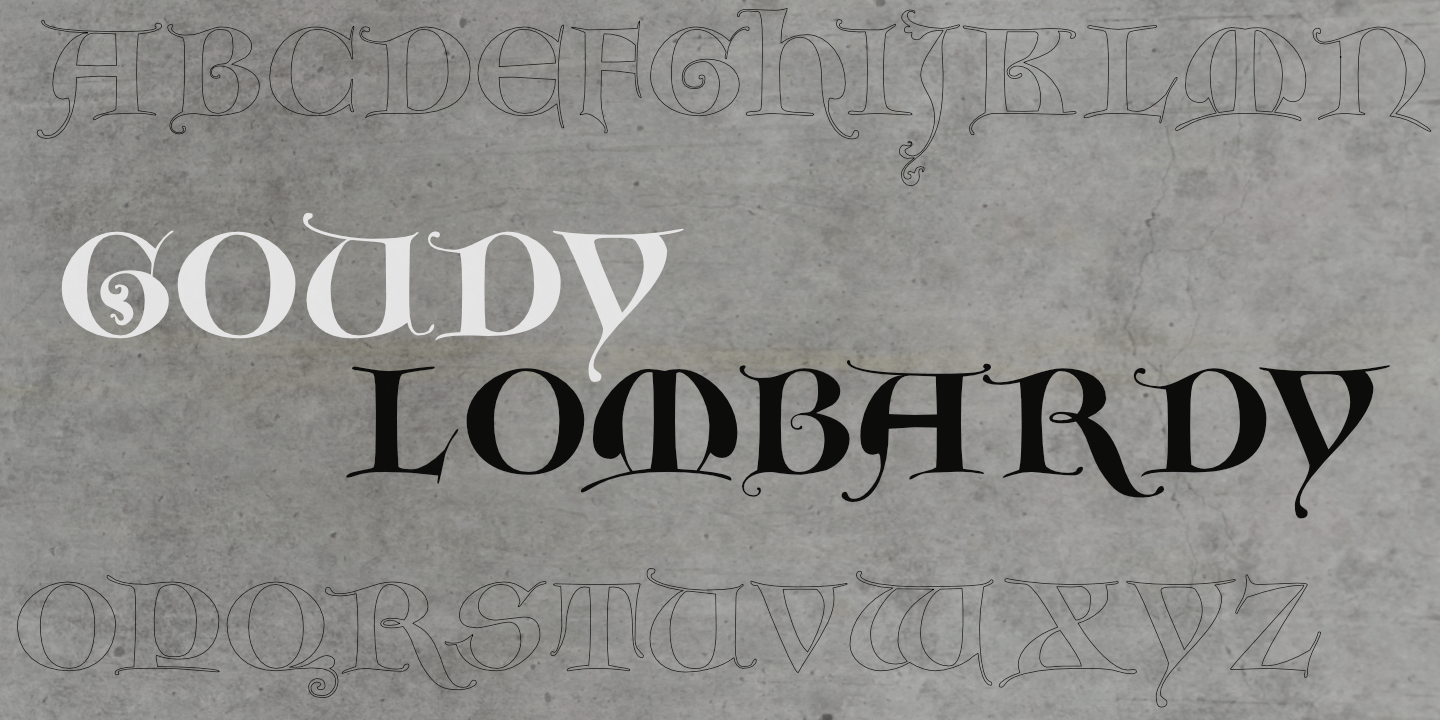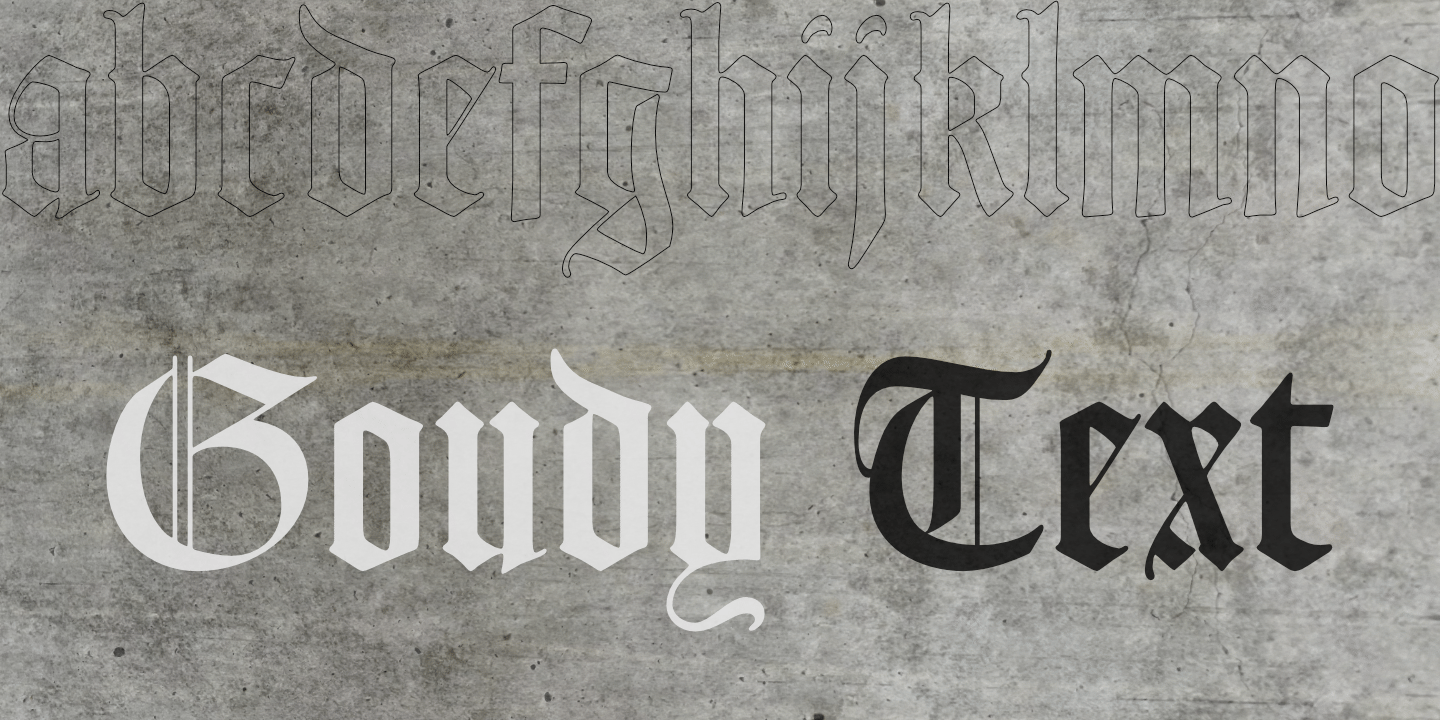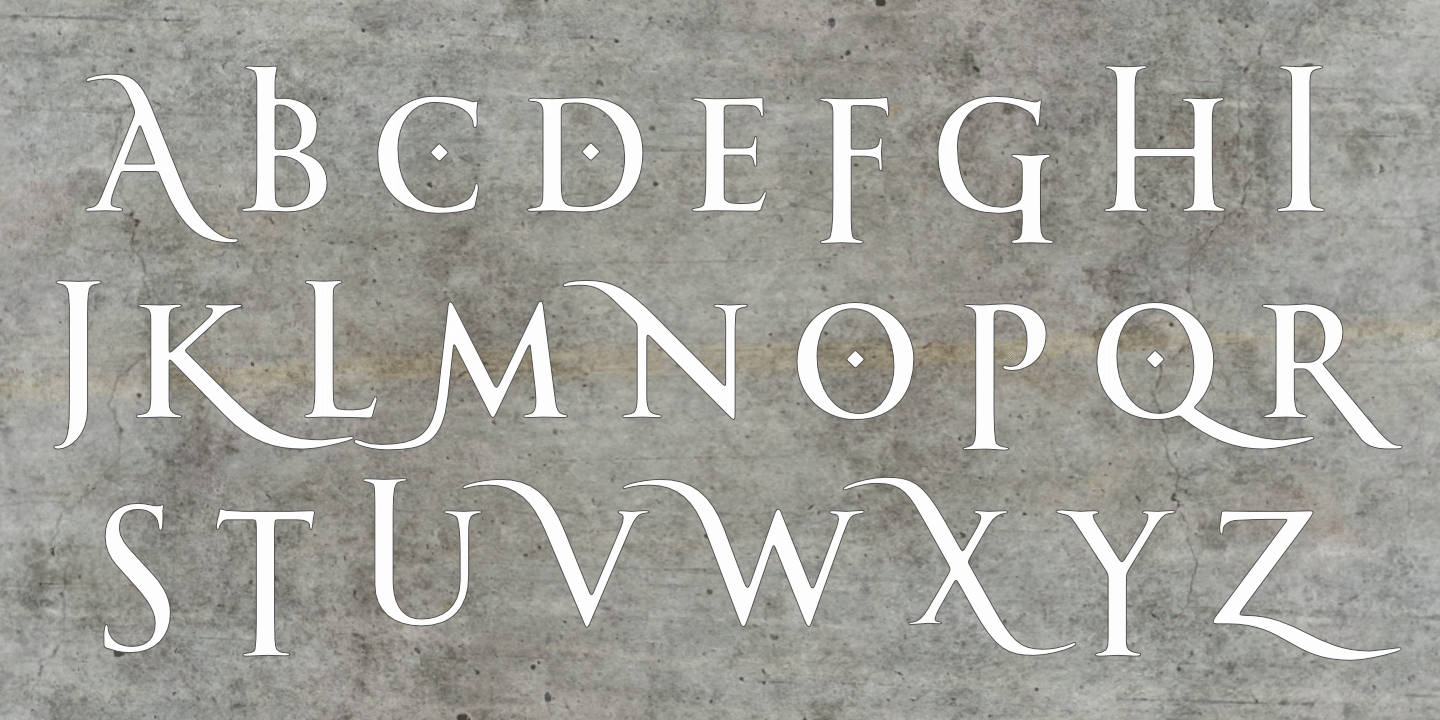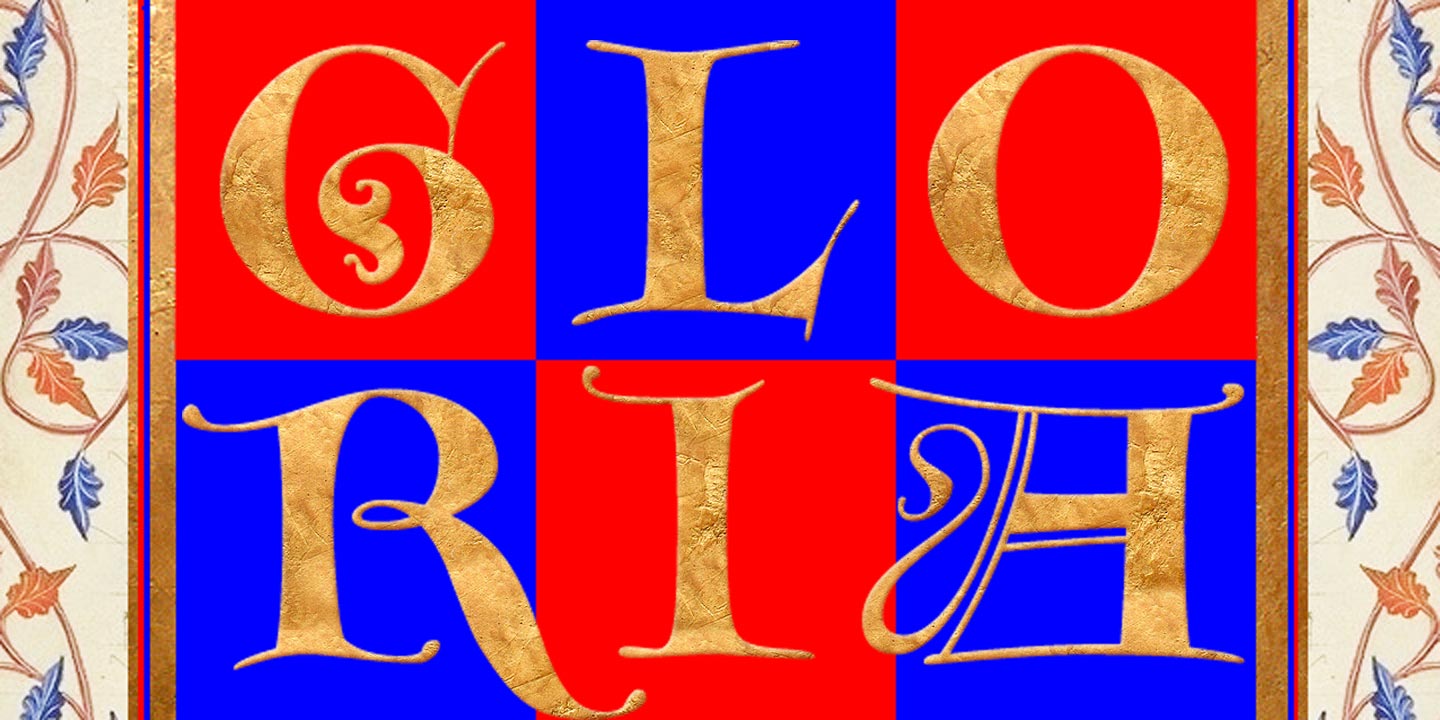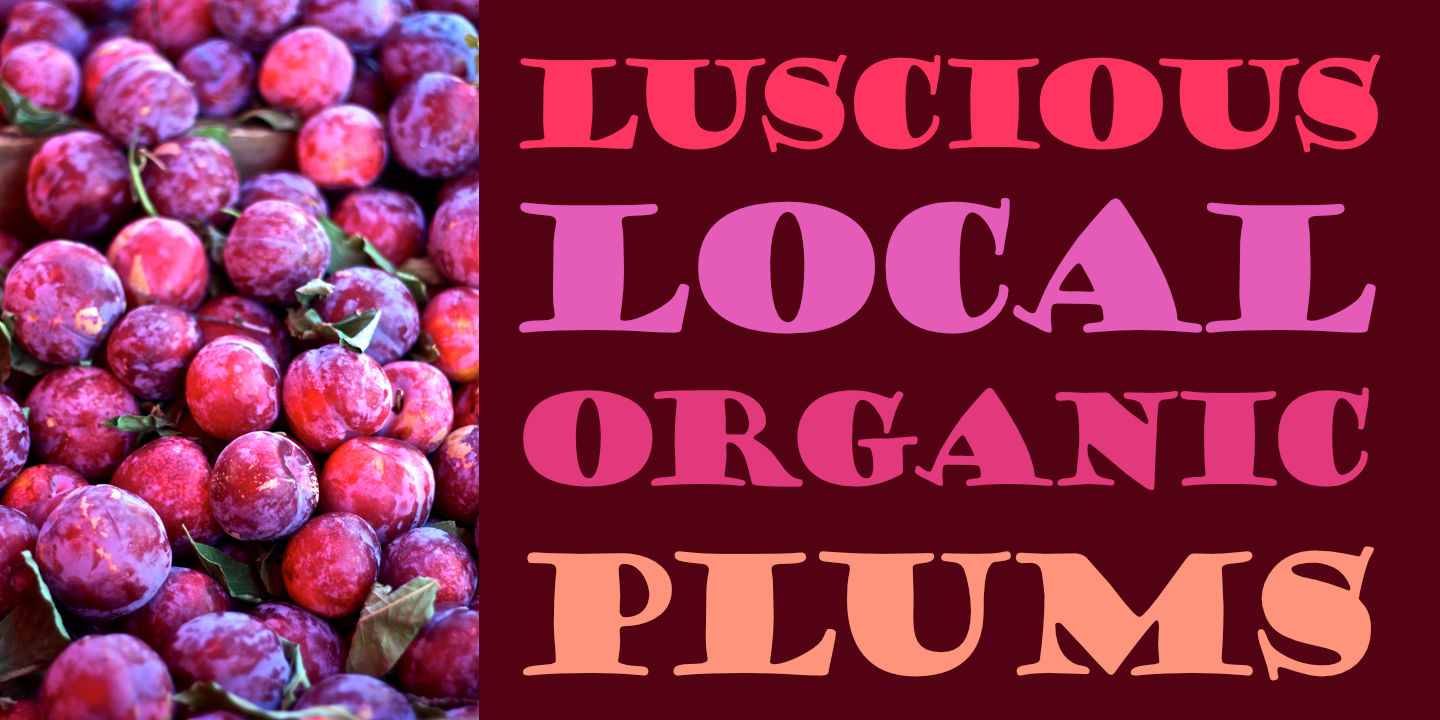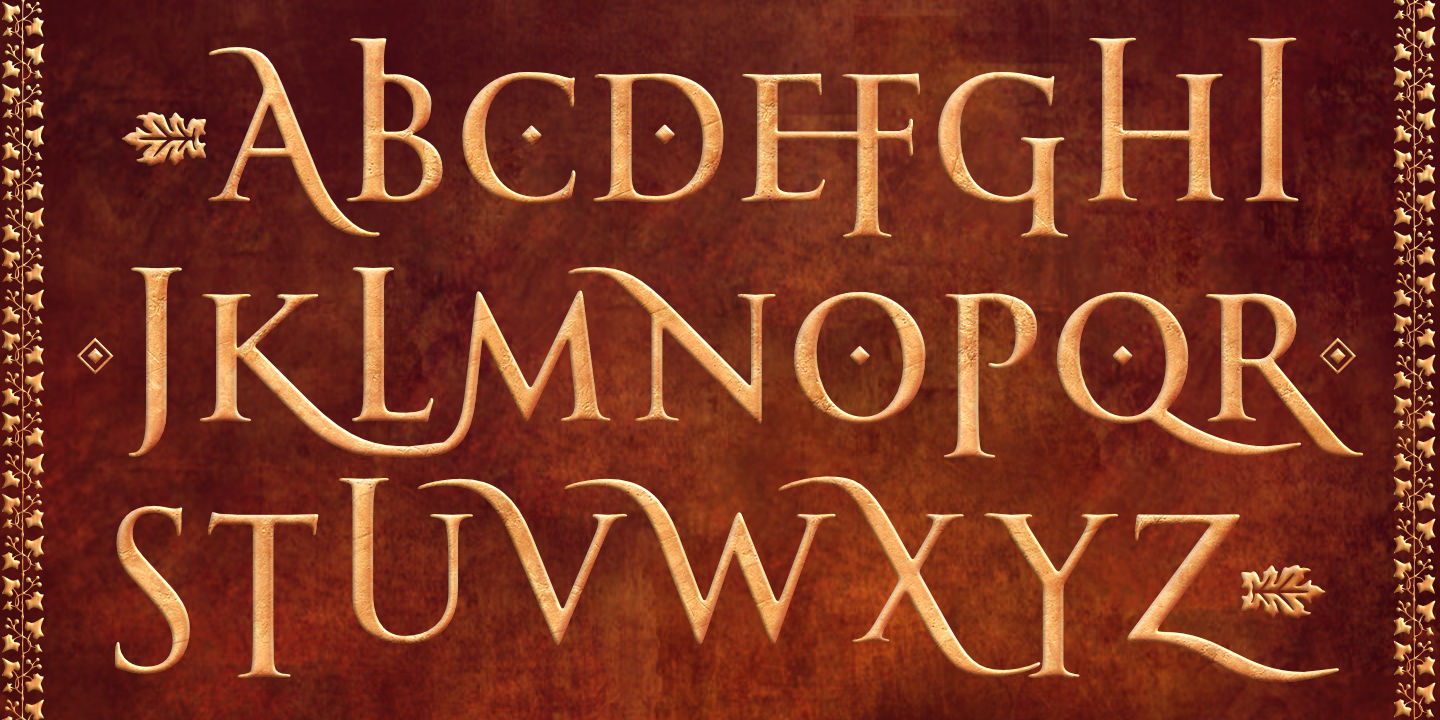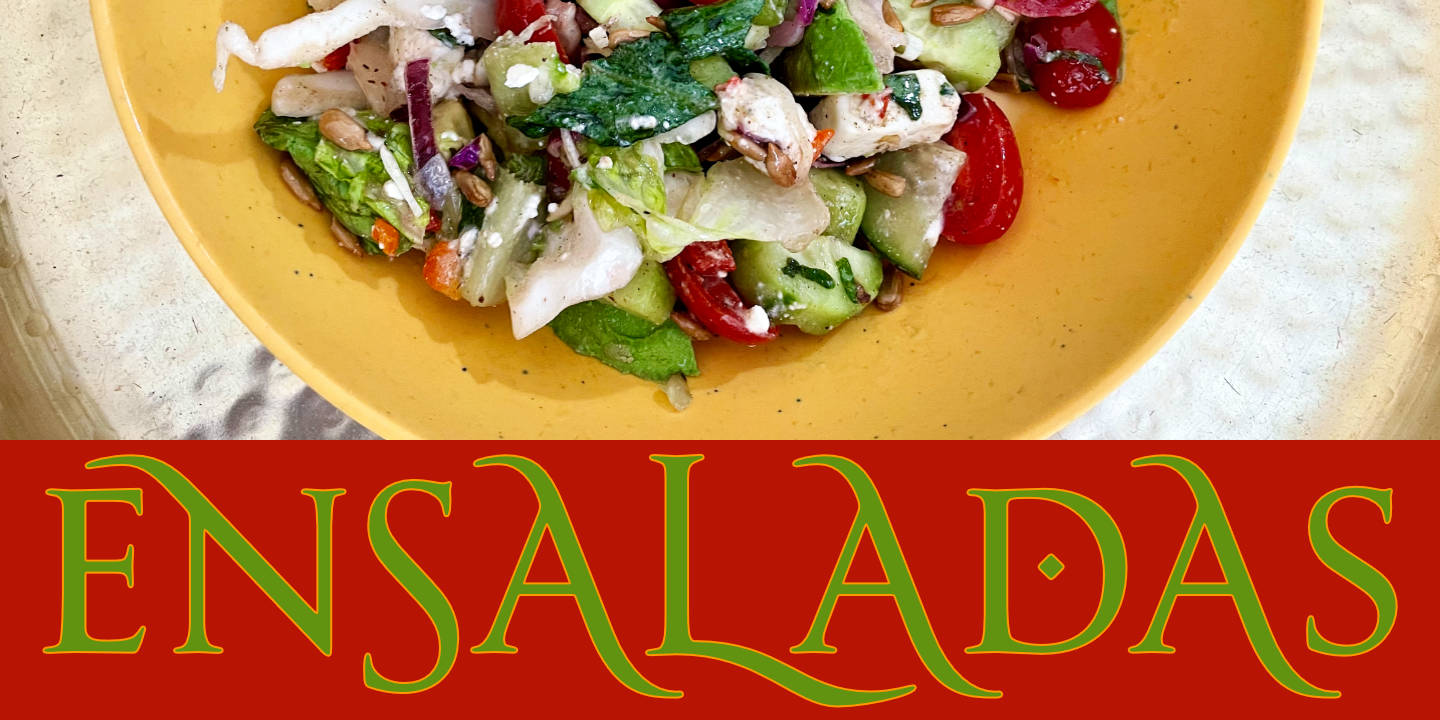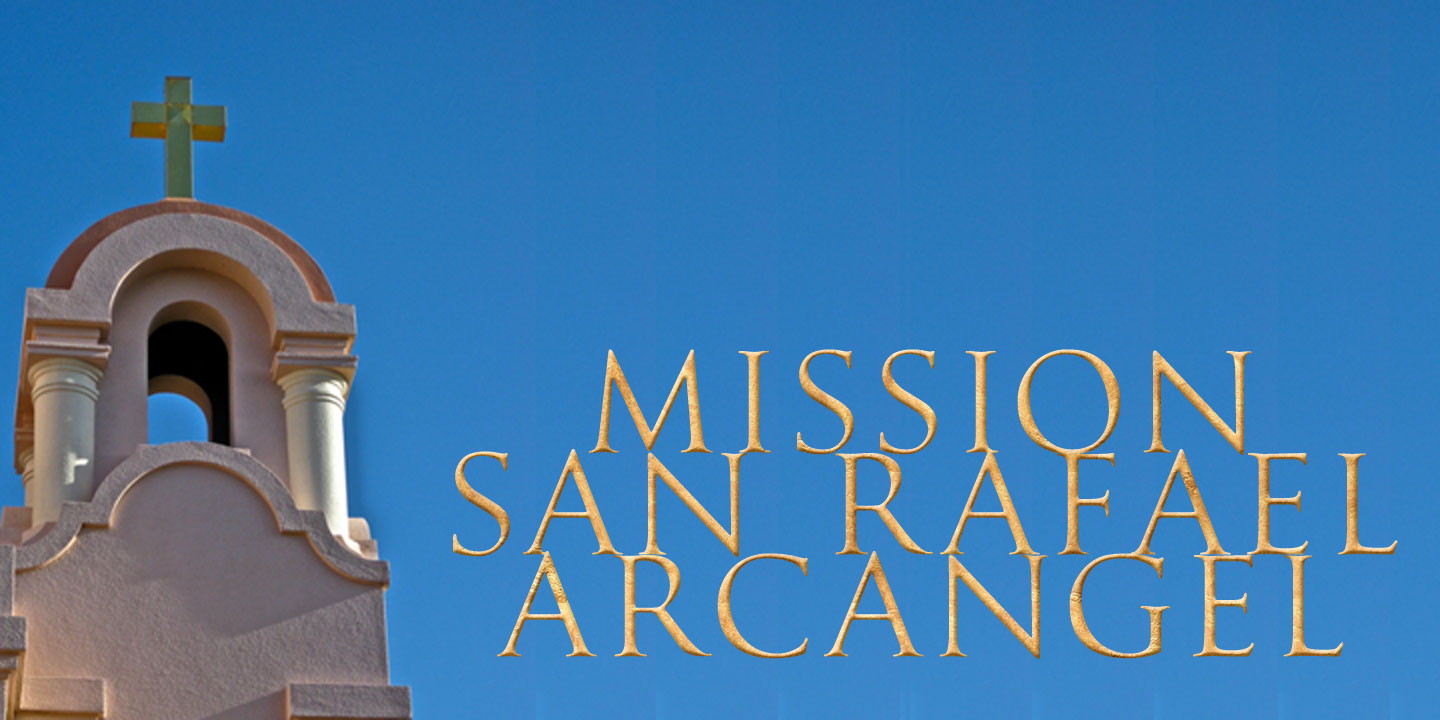
The CastleType collection of Goudy typefaces includes: Goudy Text, Goudy Trajan (the original Regular weight as well as Medium and Bold weights), Goudy Stout, and Goudy Lombardy Capitals that works beautifully as initials for Goudy Text. Click (or tap) on any font poster for a larger view and for more information about that font.
Goudy Lombardy
Goudy Lombardy CT is based on drawings of Medieval versals ('Lombardic Capitals') by Frederic W. Goudy from his book The Alphabet and Elements of Lettering. Works beautifully as initials with Goudy Text CT.
Goudy Stout
A delightful, idiosyncratic and playful design that Frederic Goudy admitted he created 'in a moment of typographic weakness.' This CastleType revival has extensive language support, including Cyrillic and Greek Modern; uppercase only. See also: Fat Freddie.
Goudy Text CT
The CastleType version of Goudy Text is based on Frederic W. Goudy's drawings (from his book The Alphabet and Elements of Lettering) on which he based his Goudy Text typeface. Looks especially nice when used with Goudy Lombardy as initial caps.
Goudy Trajan Pro Regular
Goudy Trajan™ is based on drawings by American type designer F. W. Goudy of his rendition of the capital letters on the Trajan column. Supports Latin, Greek, and Cyrillic scripts.
Goudy Trajan Pro Medium
Goudy Trajan™ is based on drawings by American type designer F. W. Goudy of his rendition of the capital letters on the Trajan column. Supports Latin, Greek, and Cyrillic scripts.
Goudy Trajan Pro Bold
Goudy Trajan™ is based on drawings by American type designer F. W. Goudy of his rendition of the capital letters on the Trajan column. Supports Latin, Greek, and Cyrillic scripts.